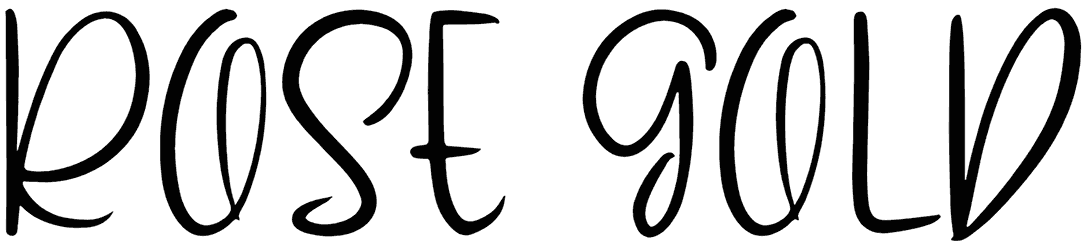
Rose Gold Font
True beauty is the only suitable term we could find to describe a delicate handwritten font like Rose Gold that comes with an elegant flow and soft texture.
If you are in the middle of designing business cards, greeting cards, flyers, illustrations, and stickers that require a personalized handwritten touch, its mixture of lowercase and uppercase letters would be the best option. Due to its crooked style, it brings a sense of sincerity, momentum, vitality, and vivacity to your artwork.